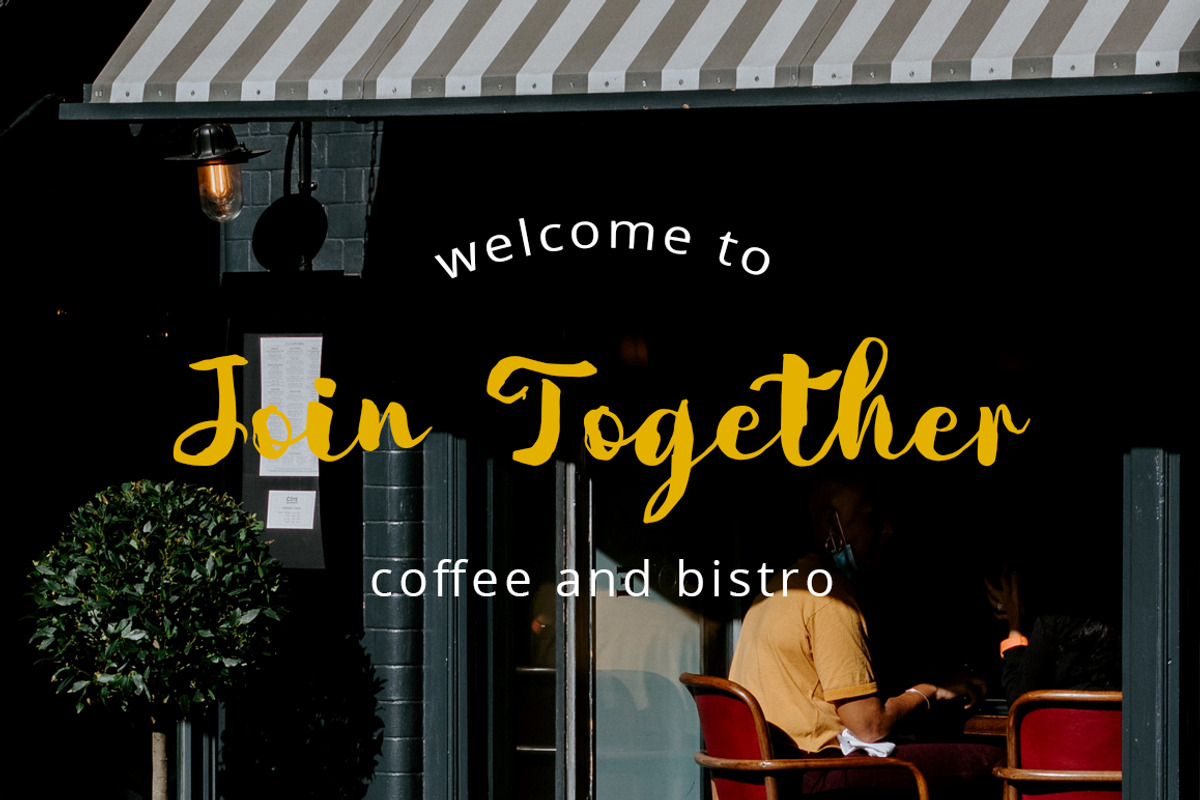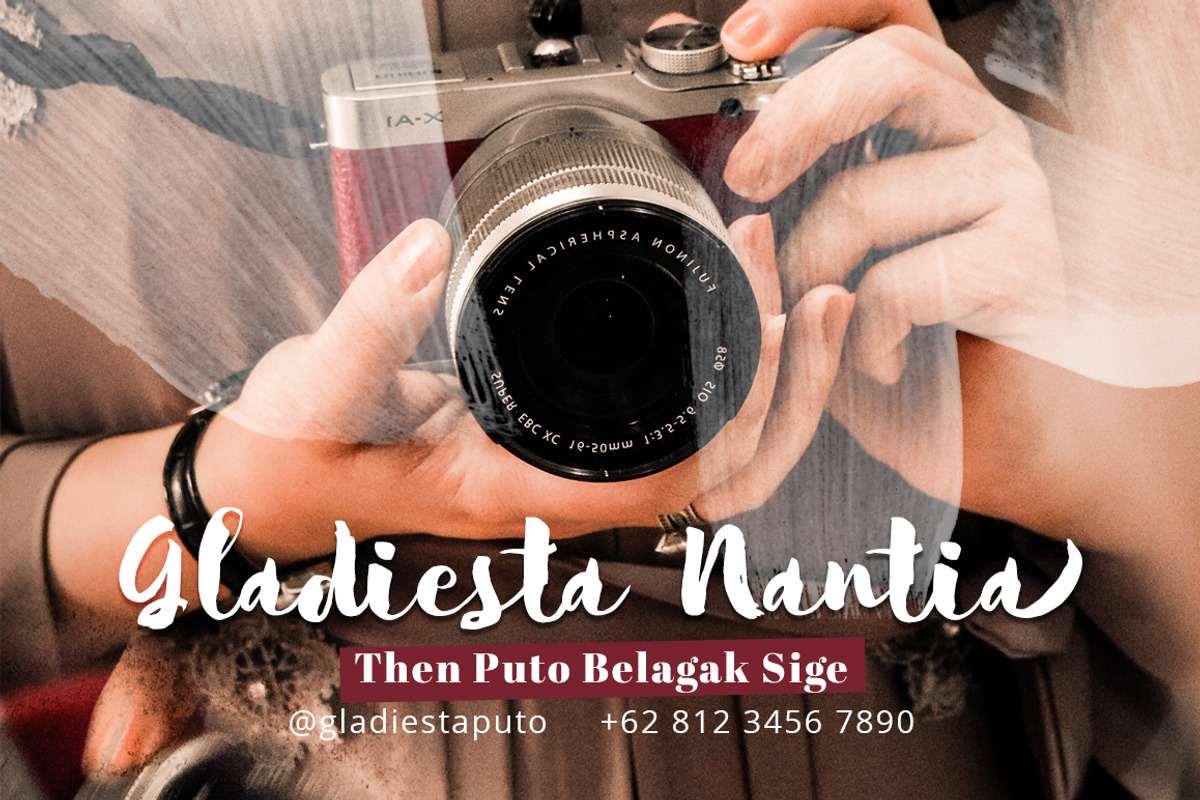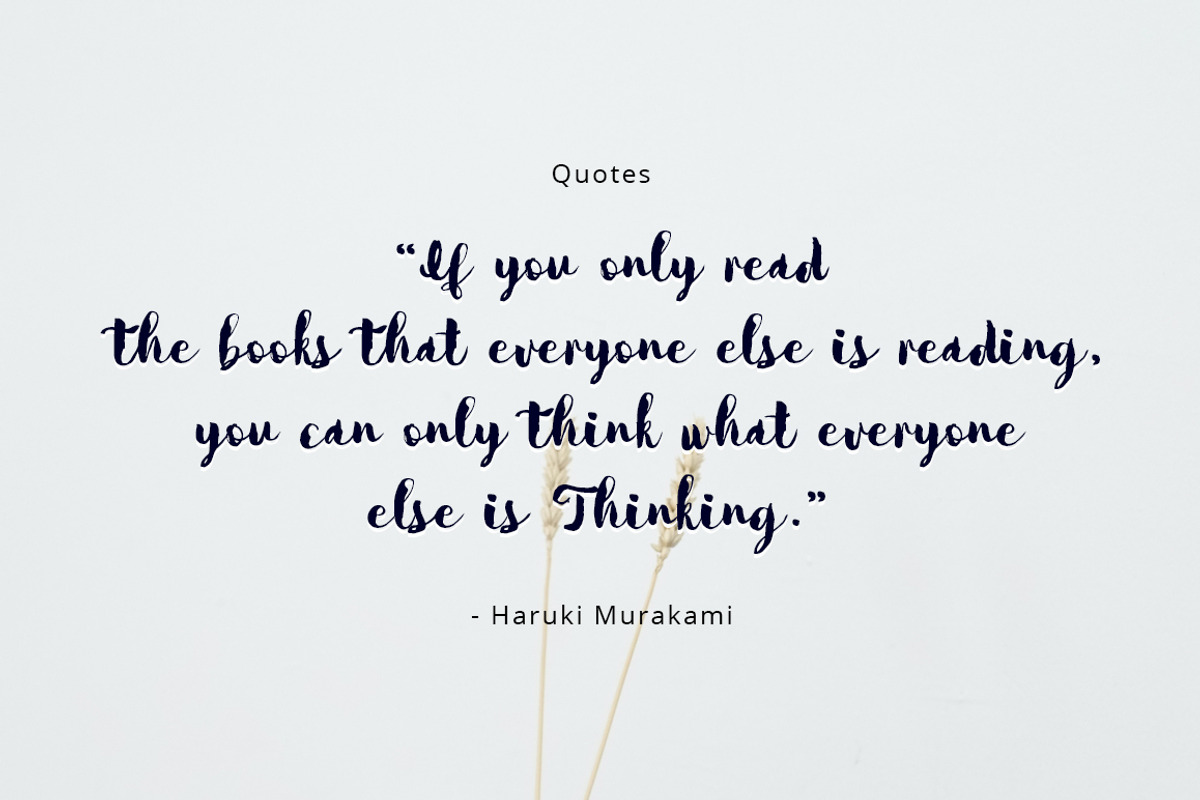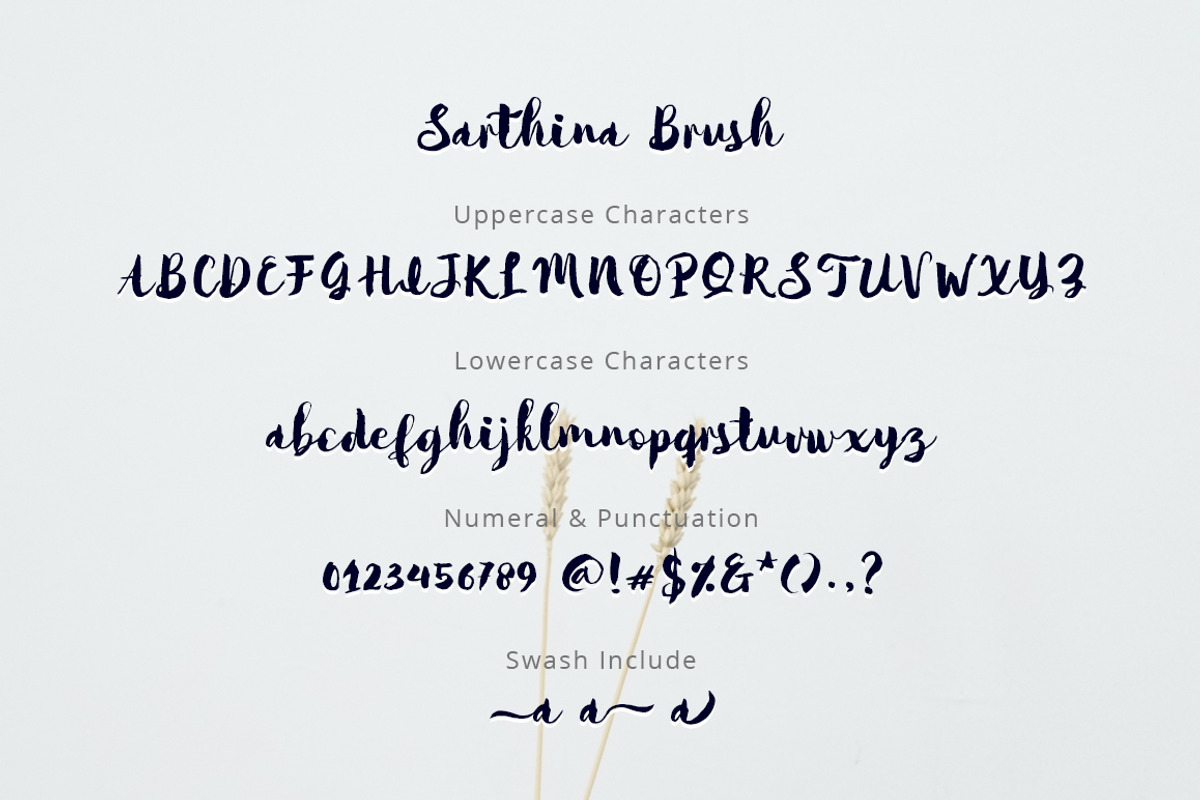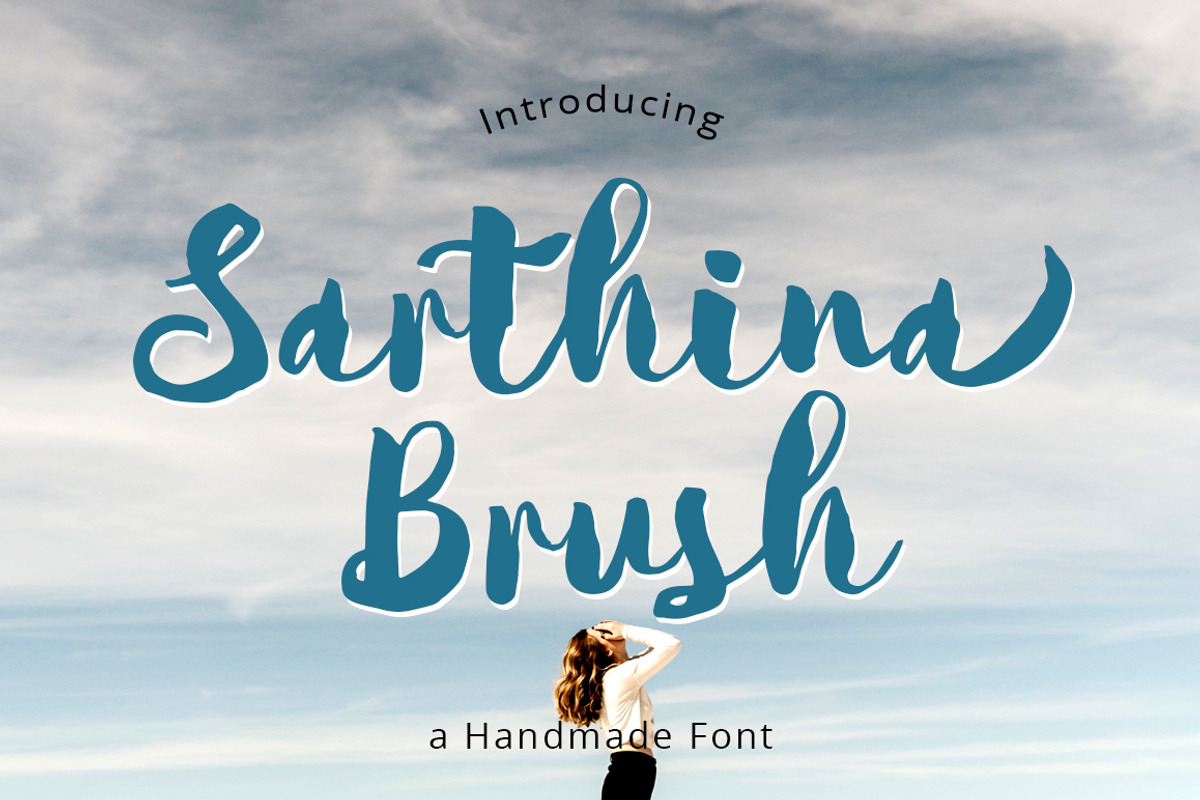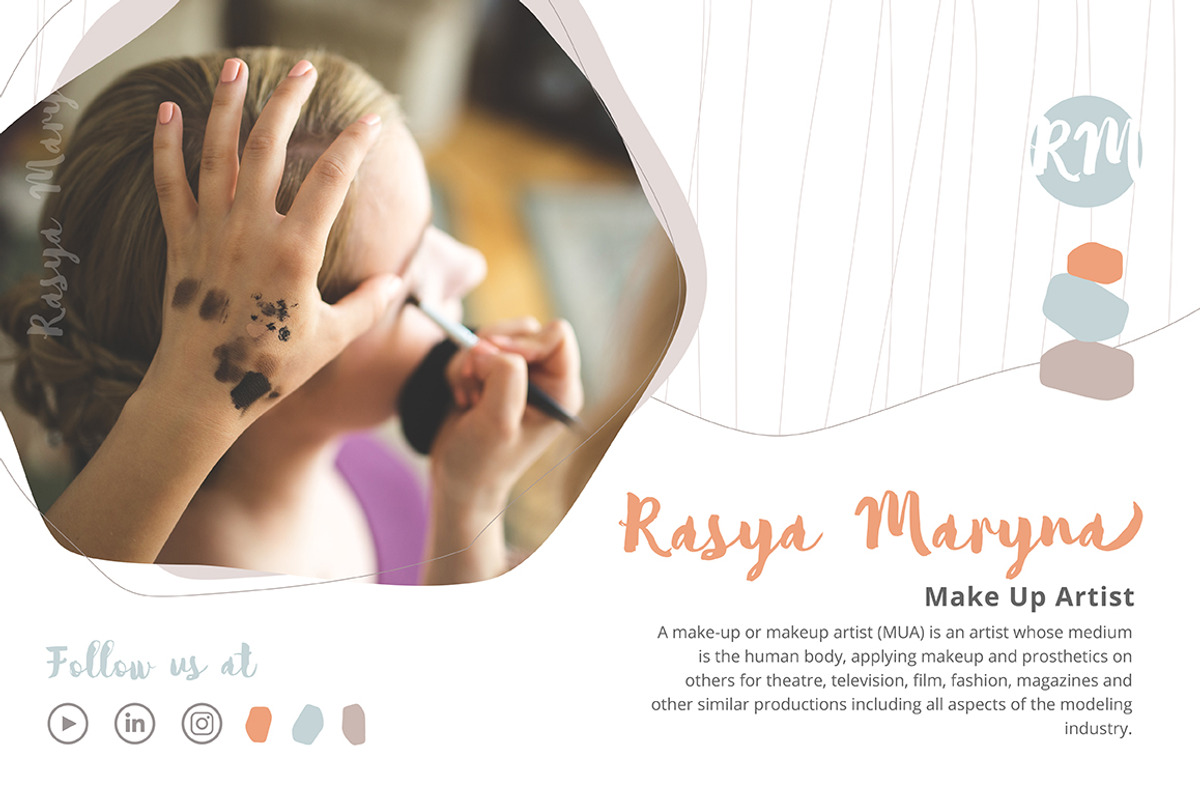
Sarthina Brush Font
Introducing Sarthina - an exquisite brush-lettered font that raises the bar in typography. Crafted with superior quality, it effortlessly adds an artistic touch to any project. Whether your backdrop is ink, watercolour, or standalone brushed letters, Sarthina enhances the aesthetic appeal to the hilt. It's not just a font; it's a strategic design asset primly suited for websites, branding initiatives, wedding invites, social media creatives, product design, stationery and advertising campaigns.
- Number, Symbol & Punctuation
- Alternate Characters